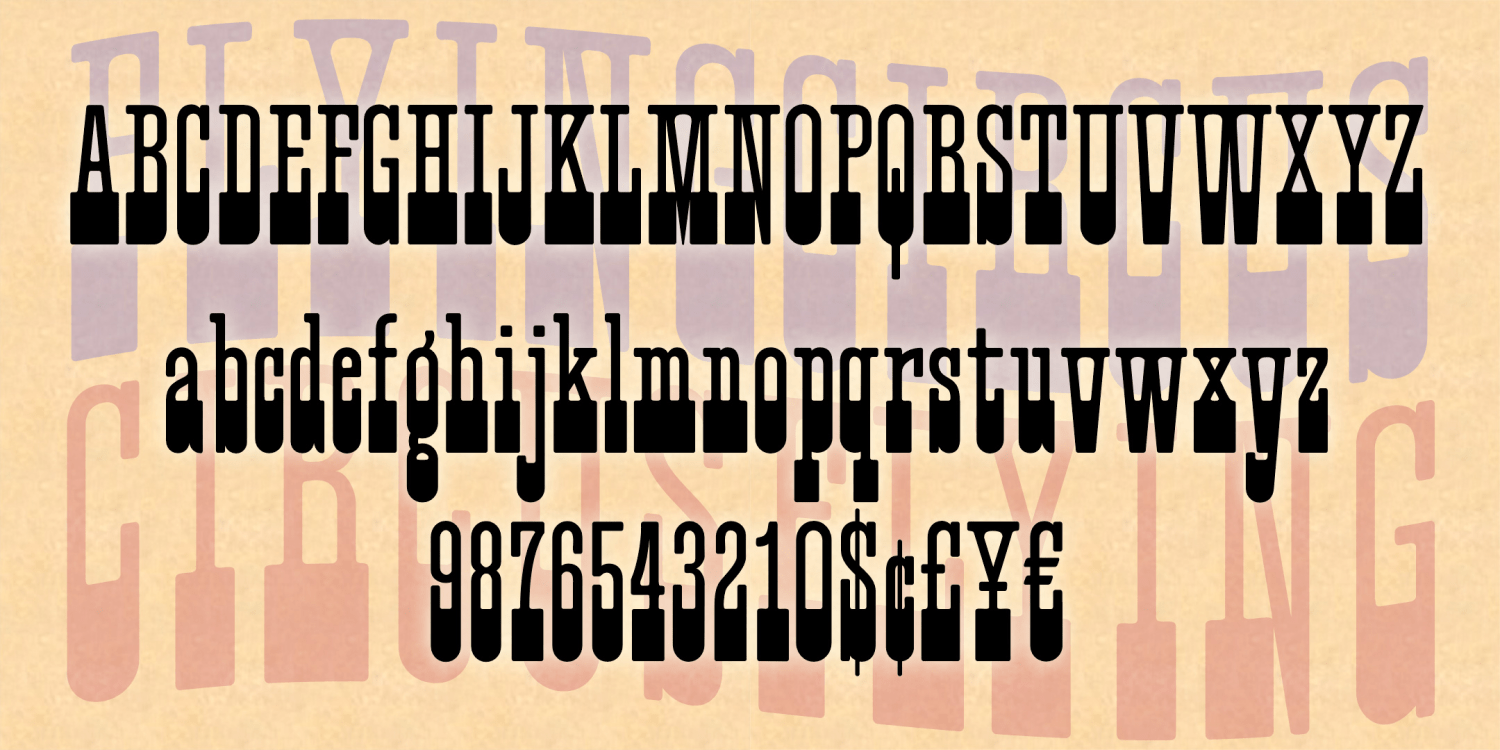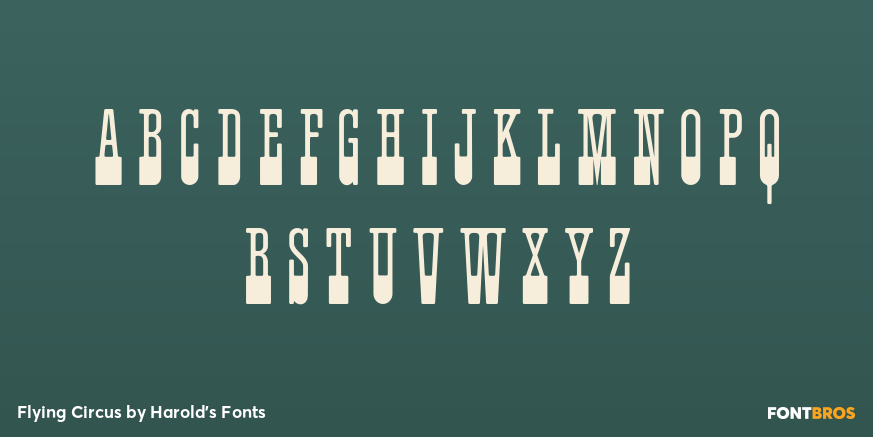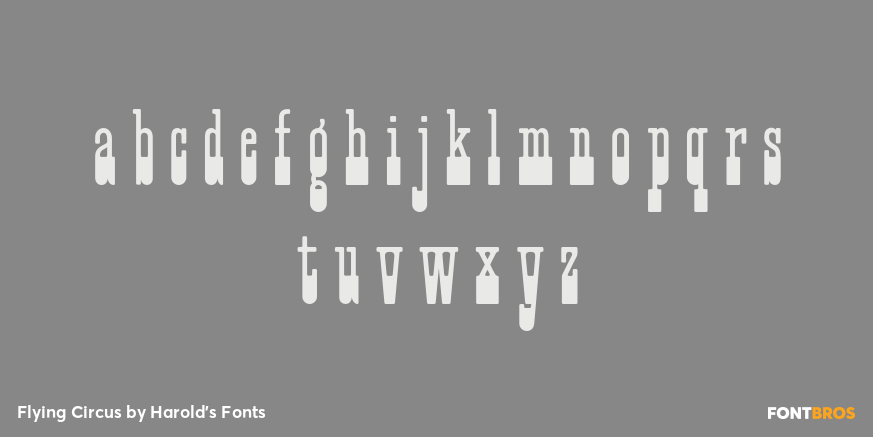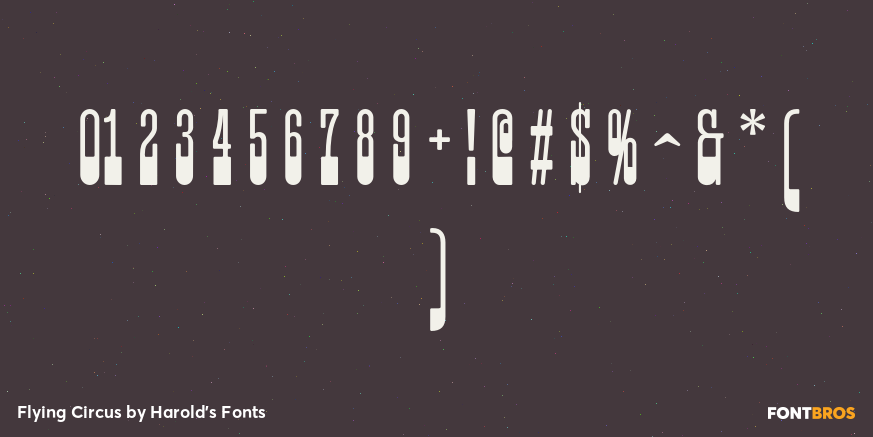
Flying Circus
Font Family by Harold's Fonts
Flying Circus is a playful, slab-serif font that can suggest Americana, the West, the carnival or circus. It was inspired by a “lost” analog font, Cirque, and has a full lowercase unlike many similar fonts.